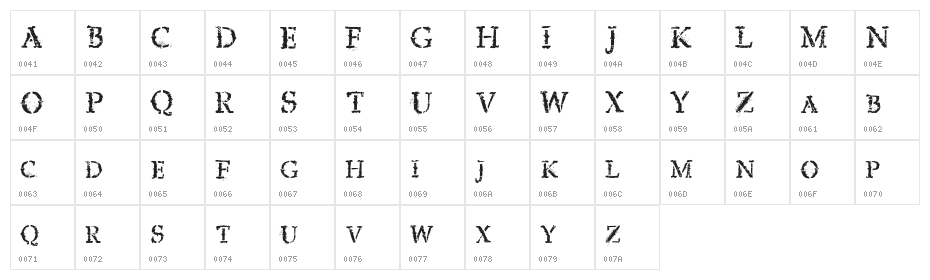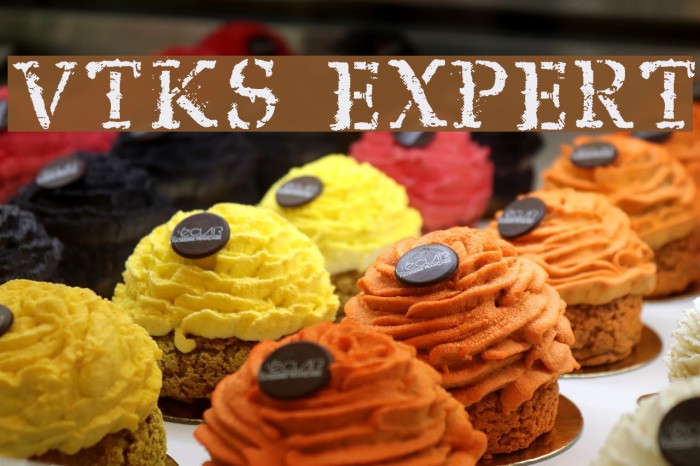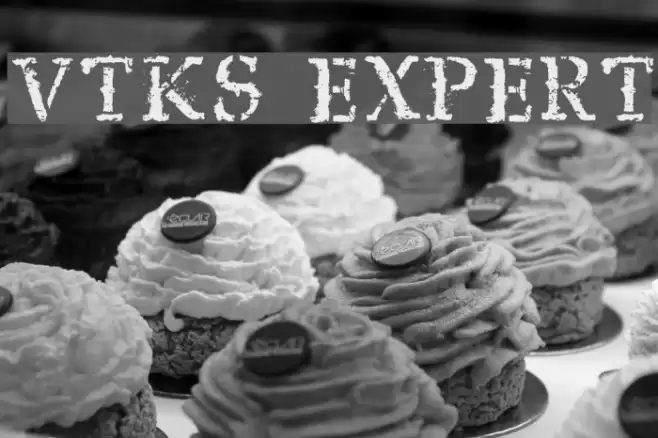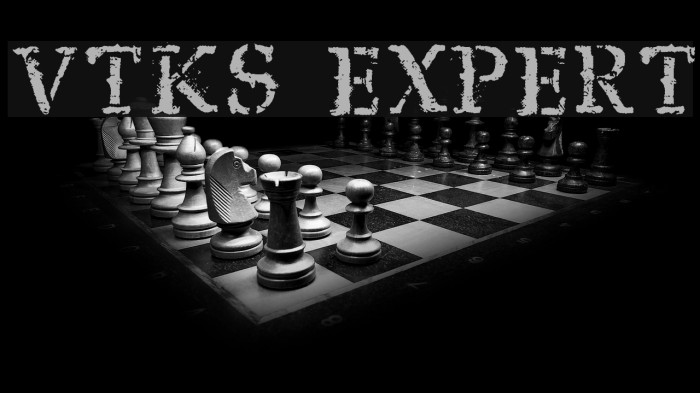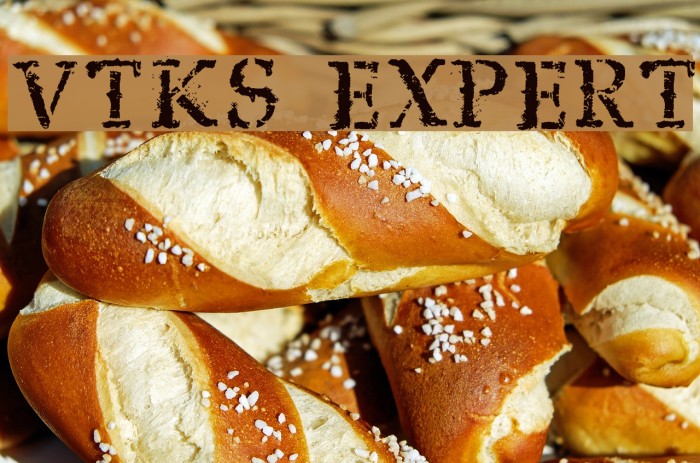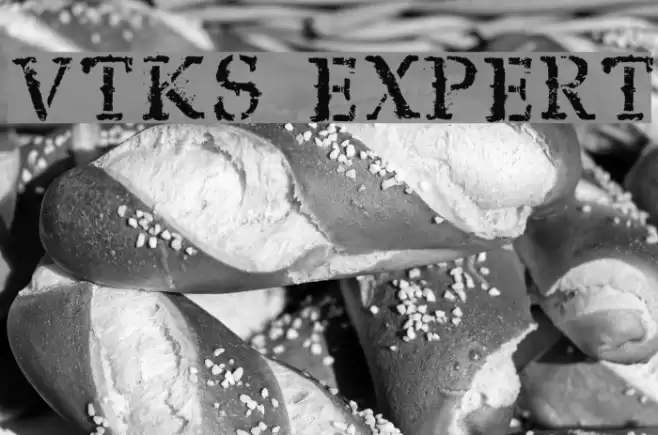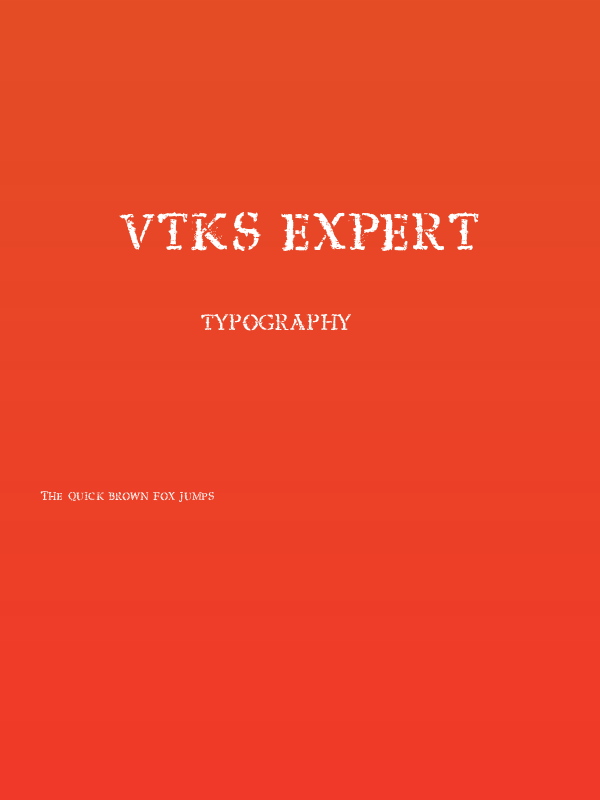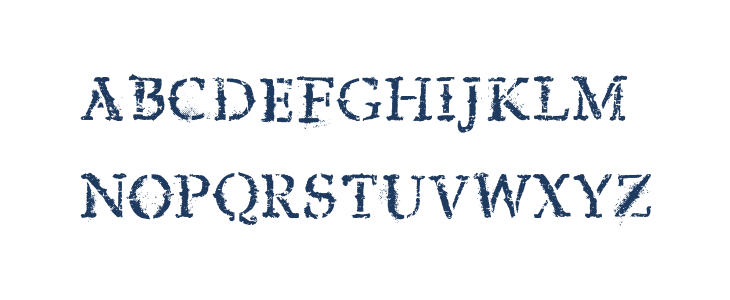
vtks expert Font
vtks expert Description
This font features a distressed, grunge style with a textured appearance that gives it a rugged and worn look. The characters are bold and have a rough, uneven edge, which adds to the overall gritty aesthetic. The uppercase letters are prominent, with a consistent height and width, while the texture varies across each character, creating a unique and dynamic visual effect. The font's design is reminiscent of vintage or industrial themes, making it suitable for projects that require a bold and impactful statement. Its distinctive style is eye-catching and can be used to convey a sense of edginess or rebellion.
| Overall Style | Vintage, Grunge |
| Proposed Projects | Ideal for posters, album covers, branding for edgy or alternative products, and any design requiring a vintage or industrial feel. |